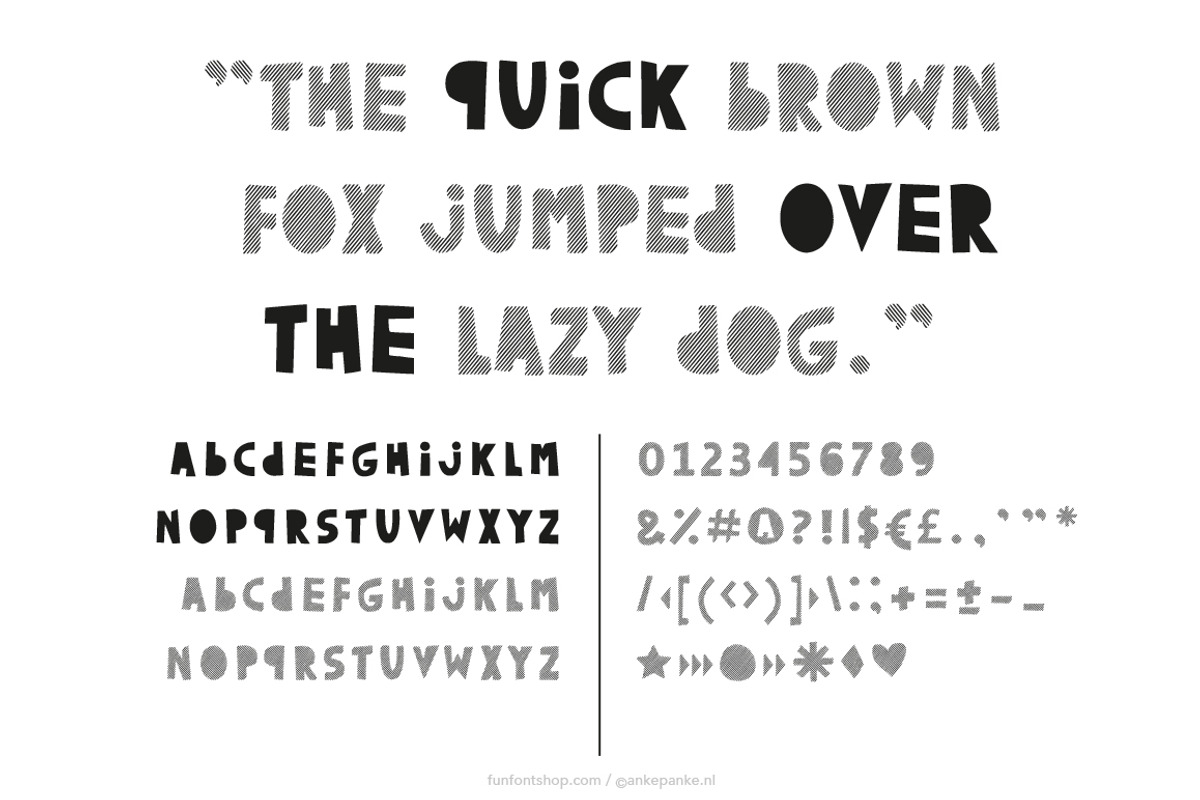
Earn Your Stripes handmade Font
Earn Your Stripes handmade Font by Fun Font Shop is a font selected for branding, posters, packaging, typography.
- The shape of the letters of this playful font are the same for lower- and uppercase, but one is positive and the other negative, fun to mix
Why Earn Your Stripes handmade Font is worth a look
Earn Your Stripes handmade Font by Fun Font Shop fits naturally into Branding, posters, packaging, typography.